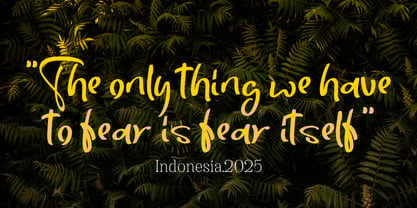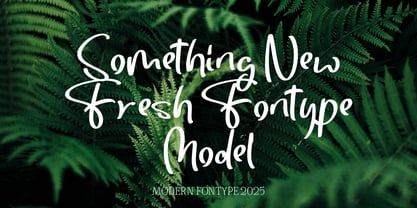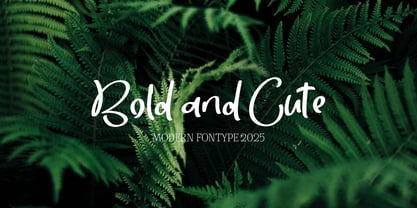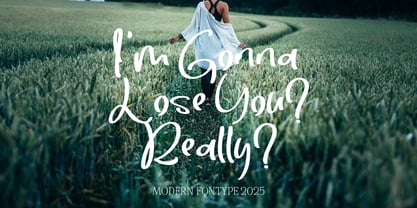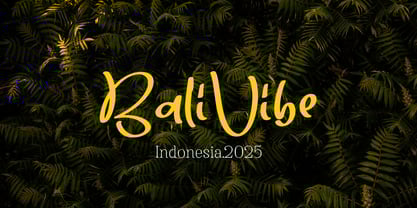
Coffee Tables
by Naatypo
The Coffee Tables Font Family was designed by Kurnia Elis Setyorini and published by Naatypo. Coffee Tables contains 1 styles. More about this family
Sweet, casual and curvy with a touch of funk, Coffee Tables is meant to emulate natural brush lettering with subtle brush texture left in - perfect for head-turning statements and eye-catching branding. It's perfect for that hand-lettered social media quote, or a bold messy look for an ad campaign.
Designers: Kurnia Elis Setyorini
Foundry: Naatypo